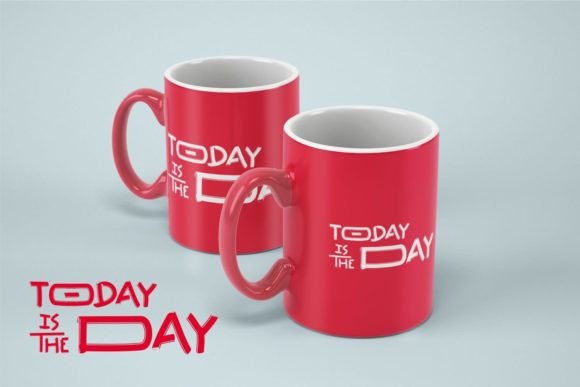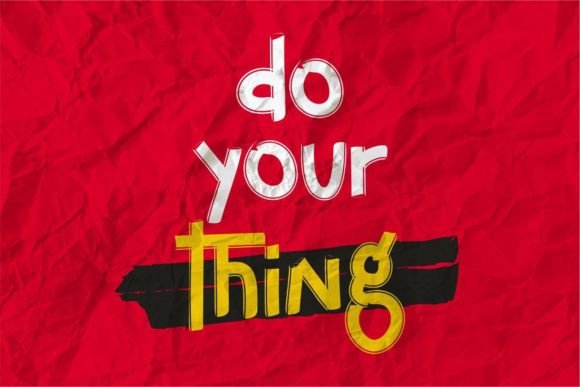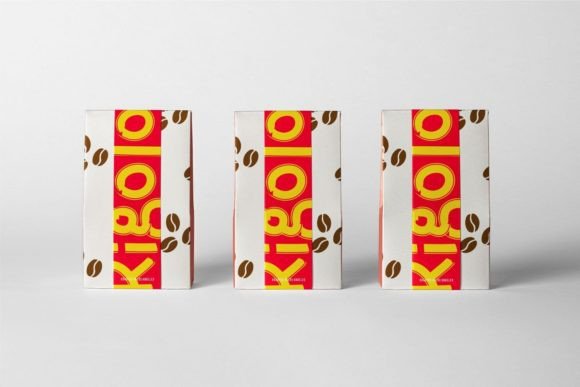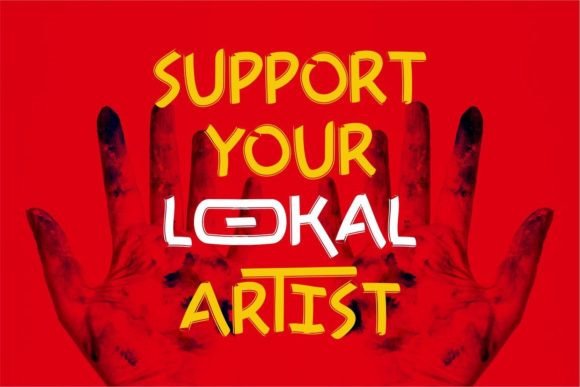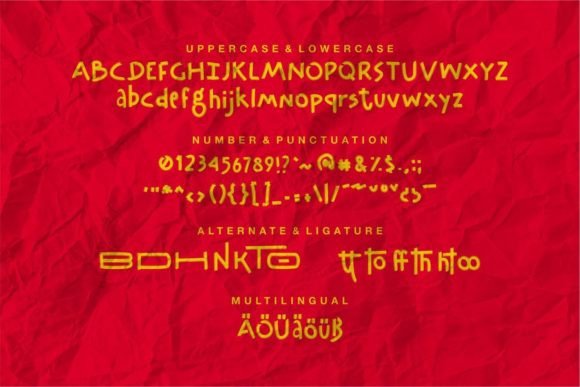
I still remember the frustration of working on a project, hours spent crafting the perfect design, only to have it fall flat due to a lackluster font choice. It was as if the entire mood and aesthetic I’d envisioned was being suffocated by a bland, uninspiring typeface. My client was thrilled, but I knew I could do better. That’s when I stumbled upon the Dako Font – an elegant and stylish solution that transformed my design workflow.
A First Impression: What Makes Dako Special
The Dako Font is more than just a pretty face; it’s packed with features that make it an excellent choice for refined logos, editorial designs, social media content, and more. Here are a few things that caught my attention:
- ✨ Elegant and stylish design
- ✅ Includes ligatures and alternates for added versatility
- ✅ PUA encoded for easy access to glyphs and ligatures
I’ve had the pleasure of working with the Dako Font for several projects, and here’s my honest assessment:
- ✨ The font’s elegant design makes it perfect for high-end branding and editorial projects
- ✅ The inclusion of ligatures and alternates adds a level of sophistication to any design
- ✅ The PUA encoding makes it easy to access the font’s advanced features
- ⚠️ Some users may find the font’s elegance too refined for casual projects
- 🤔 The font’s advanced features may require a bit of a learning curve for those new to OpenType fonts
The Story Behind Dako: Designer Inspiration
The Dako Font was created with the goal of providing a stylish and elegant solution for designers. While the designer’s story is shrouded in mystery, it’s clear that they drew inspiration from the world of high-end fashion and luxury branding. The result is a font that’s both refined and sophisticated, perfect for designers looking to elevate their work.
| Font Name | Dako Font |
| Author | Vunira |
| What is the Dako Font? | The Dako Font is an elegant and stylish font that includes features like ligatures and alternates, making it perfect for refined logos, editorial designs, and social media content. |
| Is the Dako Font easy to use? | Yes, the Dako Font is relatively easy to use, especially for those familiar with OpenType fonts. The PUA encoding makes it easy to access the font’s advanced features. |